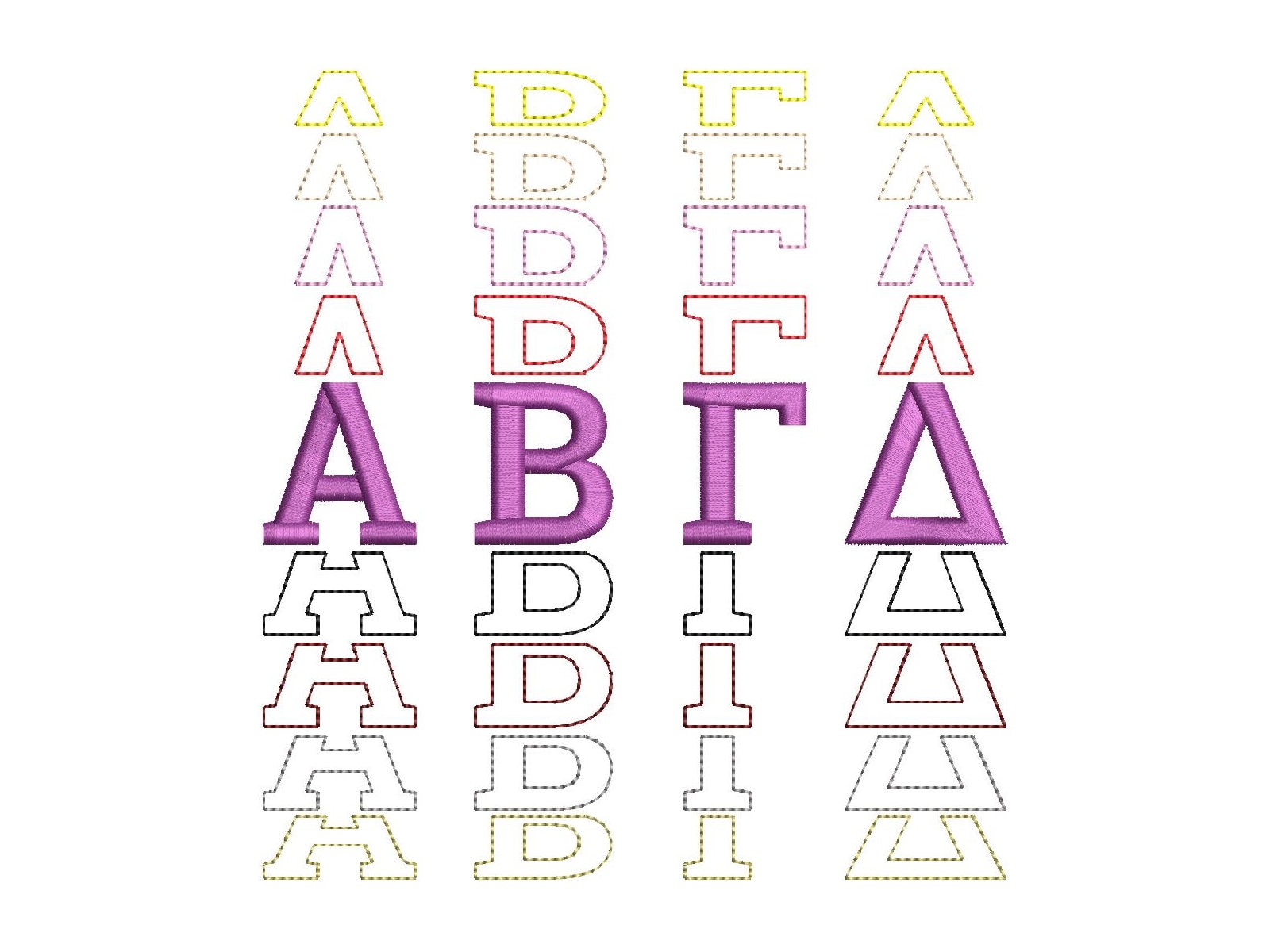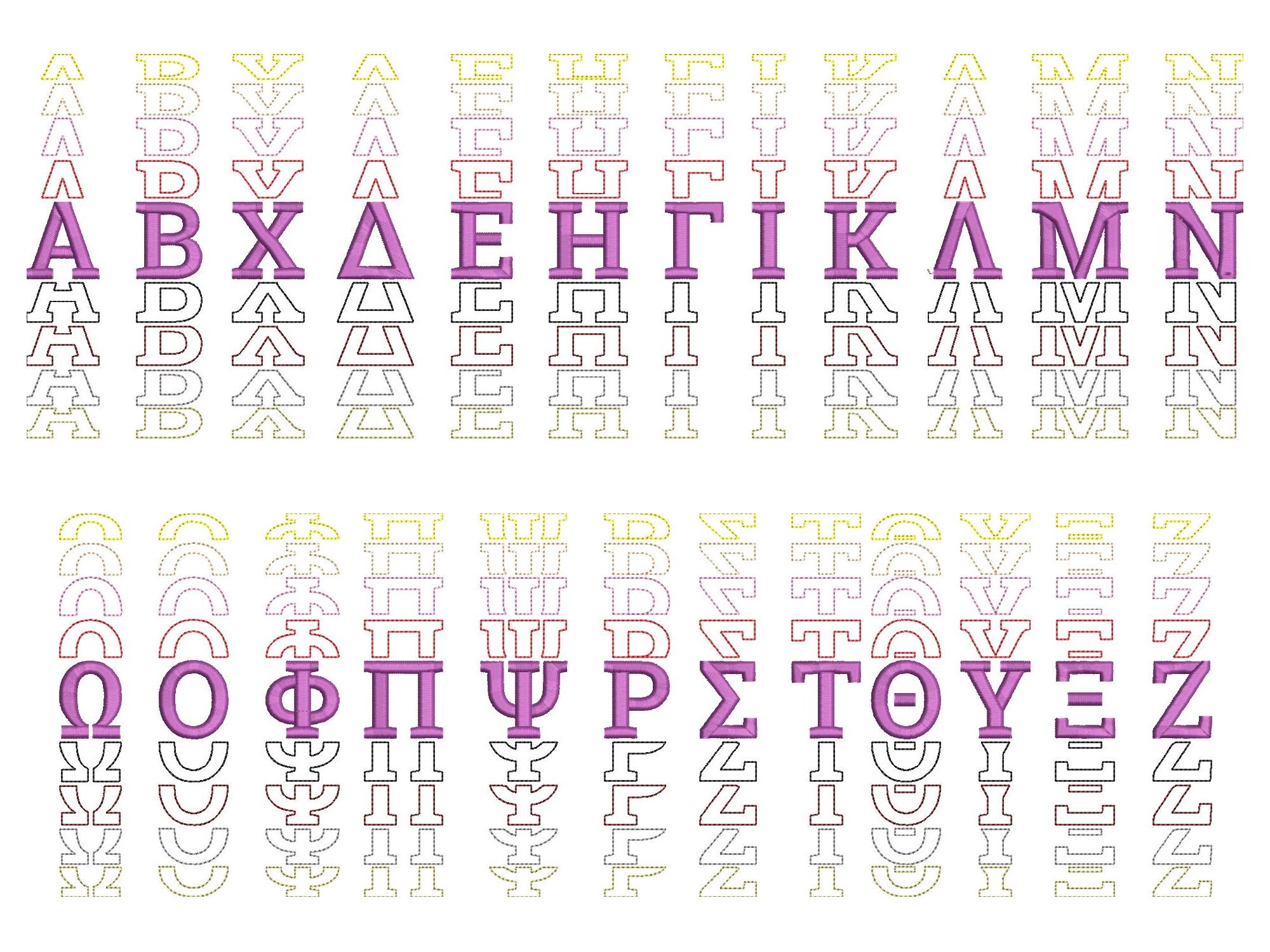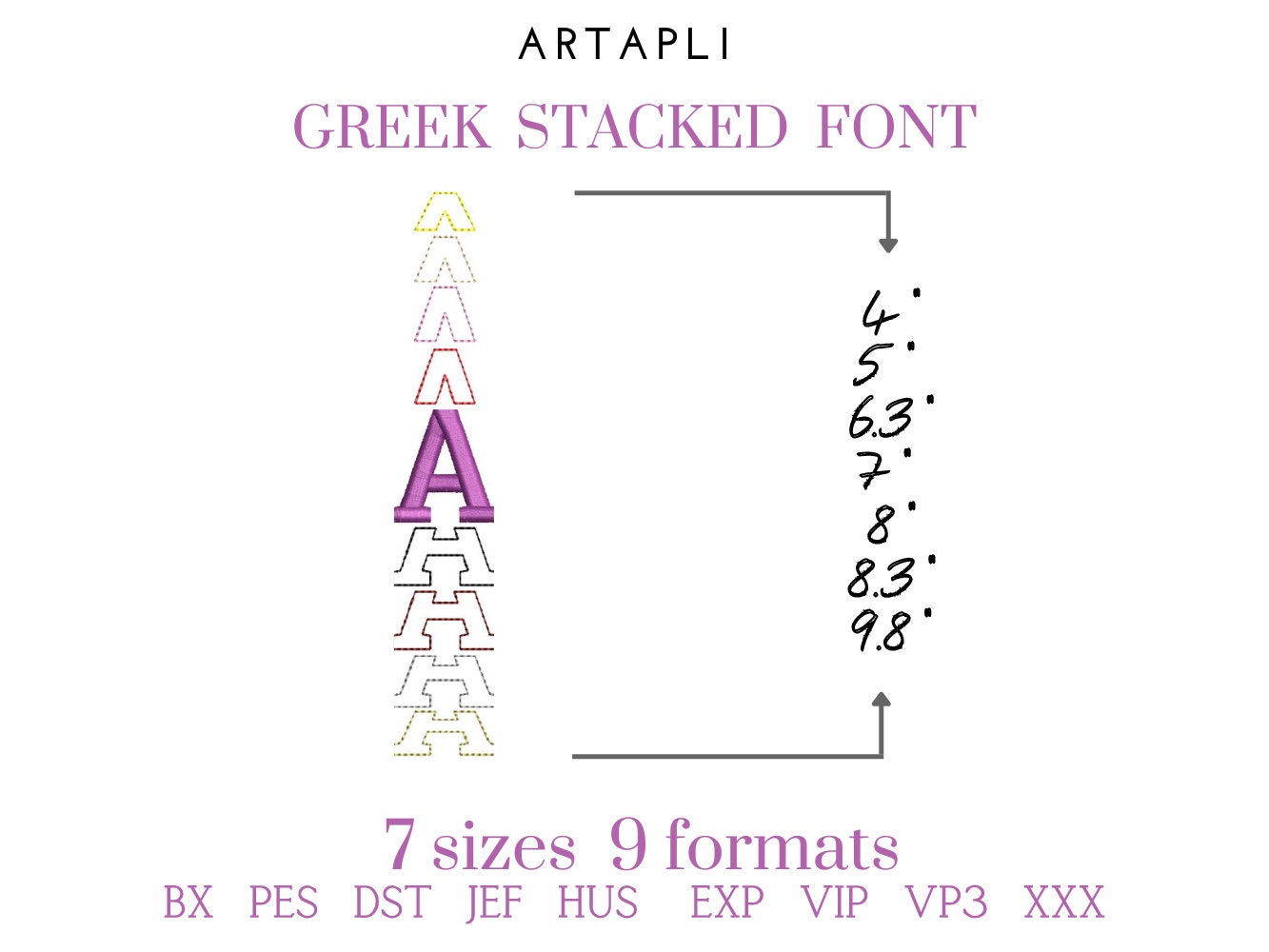
Greek Stacked Font Satin stitch and outline alphabet letters trend Font machine embroidery designs in assorted sizes Alpha Beta Gamma, BX included
The whole alphabet Alpha-Zeta uppercase letters.
Would like to see the shadow lines in a thin satin stitch. Still happy to recommend this the pattern .
it stitched out perfectly, love it!